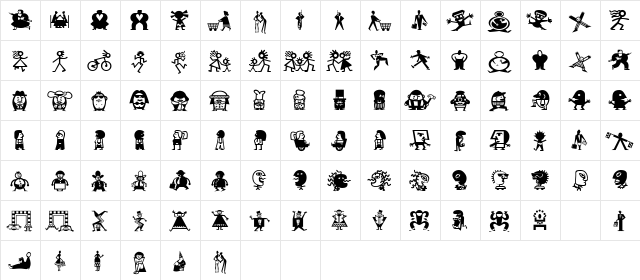
Mini Pics L'il Folks Regular
Design Context for Mini Pics L'il Folks Typeface
Mini Pics L'il Folks is a composed and adaptable typeface that performs quietly and consistently across a wide range of design contexts.